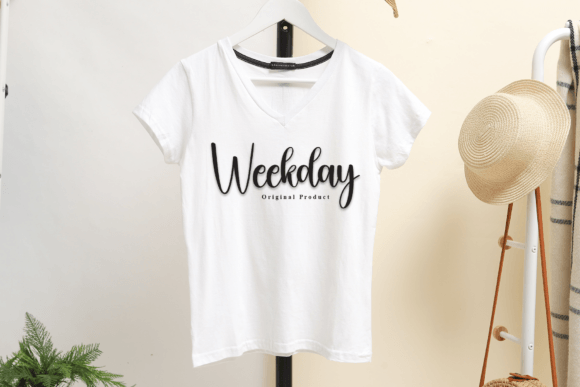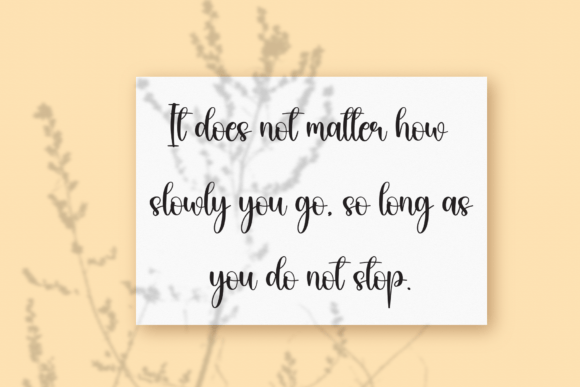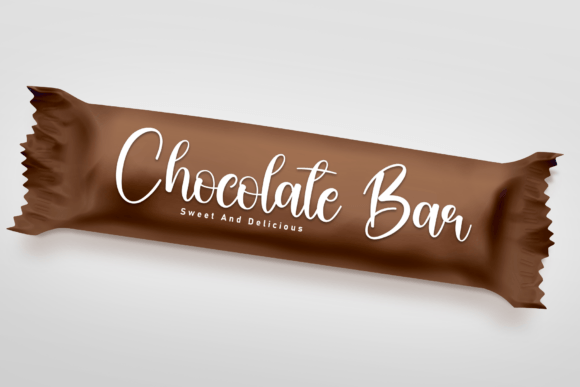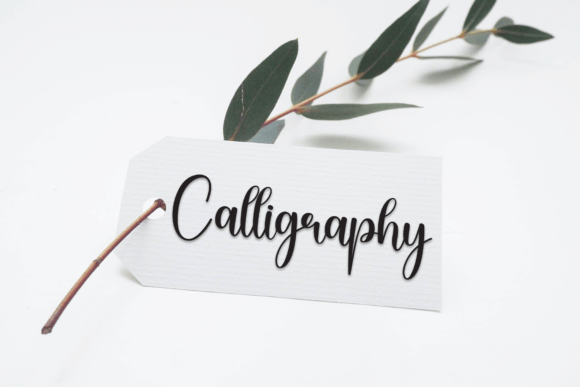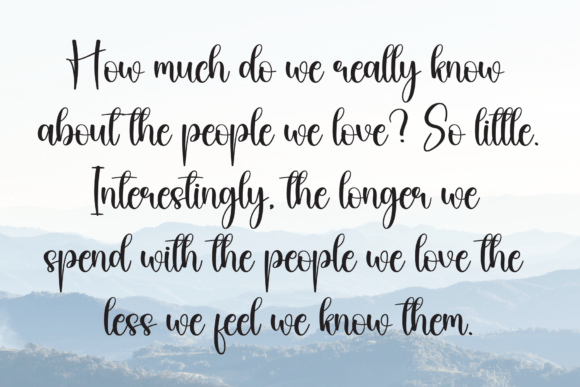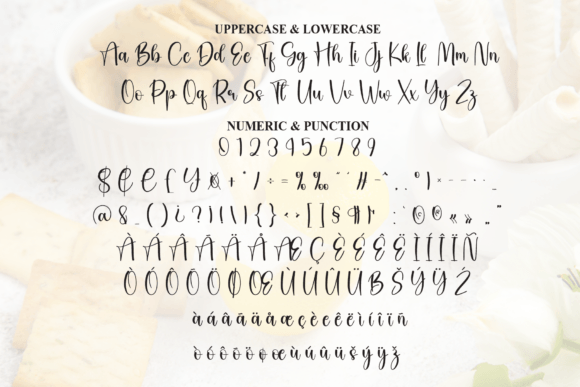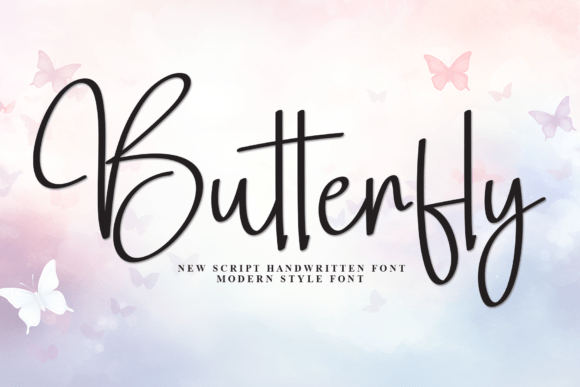
Get Ready to Spread the Love with Butter Delight Font
There’s nothing quite like the rush of inspiration that comes from a blank page, waiting for your creative touch. You’ve got an idea, a spark of imagination that’s begging to be brought to life. The possibilities are endless, but the right tool can make all the difference. That’s where the Butter Delight Font comes in – a charming handwritten font that’s sure to add a personal touch to your creative projects.
This delightful font boasts a smooth, playful style that’s perfect for designers looking to add a warm, friendly feel to their work. Its flowing letters and soft curves create a whimsical, inviting vibe that’s sure to capture the hearts of your audience. Whether you’re working on a branding project, a social media campaign, or a personal design piece, the Butter Delight Font is an invaluable asset that’s sure to elevate your work to the next level.
Key Features of Butter Delight Font
- Unique Characteristics: Butter Delight Font features a playful, cursive script with elegant flourishes, making it perfect for creating eye-catching headings and titles.
- Font Style: The font comes in two styles: Regular and Bold, allowing you to add emphasis and depth to your designs.
Butter Delight Font Review
I’ve had the chance to work with the Butter Delight Font, and I must say it’s an interesting font. Here are my honest thoughts:
- The font has a unique and playful feel to it, perfect for designing children’s books or promotional materials for food brands.
- The font’s rounded edges and smooth curves make it visually appealing and easy on the eyes.
- It has a wide range of styles, from bold to light, which gives designers a lot of flexibility when it comes to using it in different contexts.
- The font may be too playful for more formal or corporate designs, which could make it seem unprofessional.
- The bold styles can be quite dense, which may affect readability in certain situations.
- The font’s overall feel is quite nostalgic, which may not appeal to designers who prefer more modern or minimalist designs.
Overall, the Butter Delight Font is a fun and versatile font that can add a playful touch to your designs. However, it may not be the best choice for every project, and designers should carefully consider its limitations before using it.
Tips for Getting the Most Out of Butter Delight Font
Use the Butter Delight Font for creative and whimsical designs, such as invitations, greeting cards, and children’s books.
Combine the font with bold and bright colors to create a playful and eye-catching design.
Experiment with different font sizes and styles to add depth and visual interest to your design.
Children’s books and educational materials
Party invitations and decorations
Greeting cards and gift tags